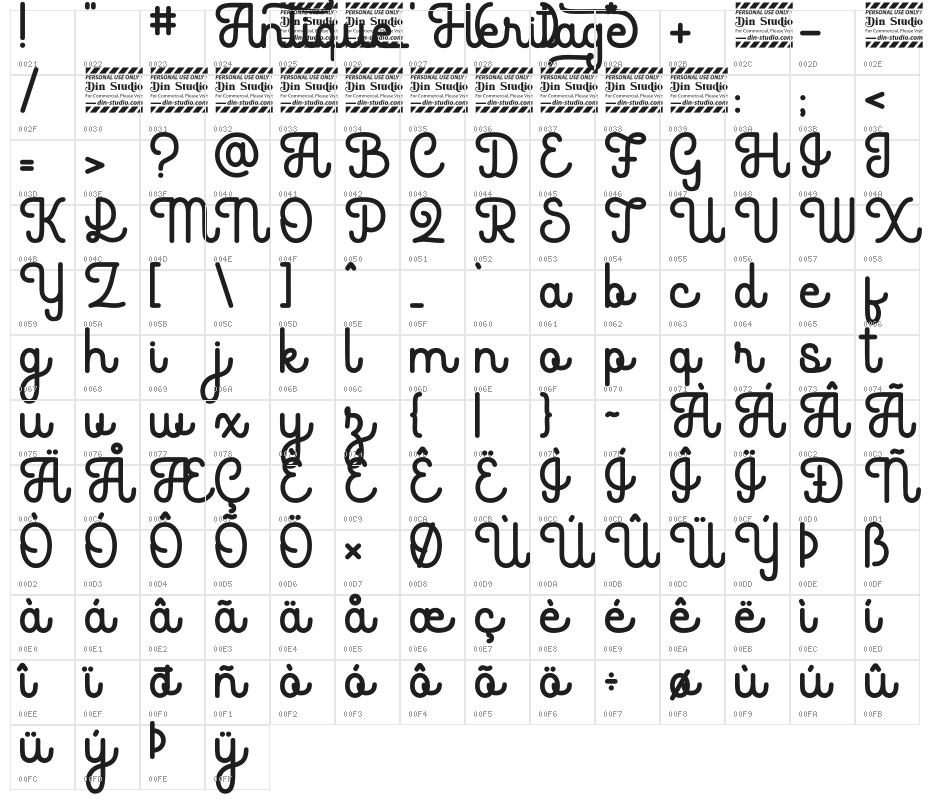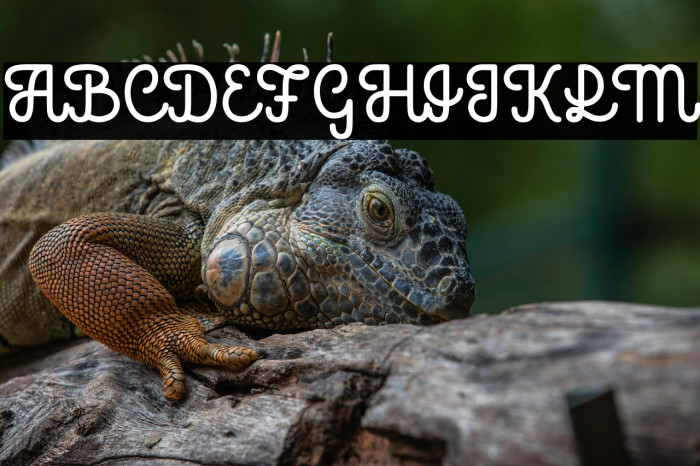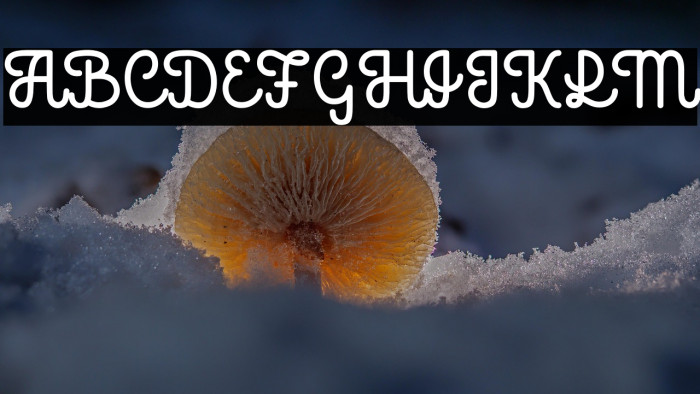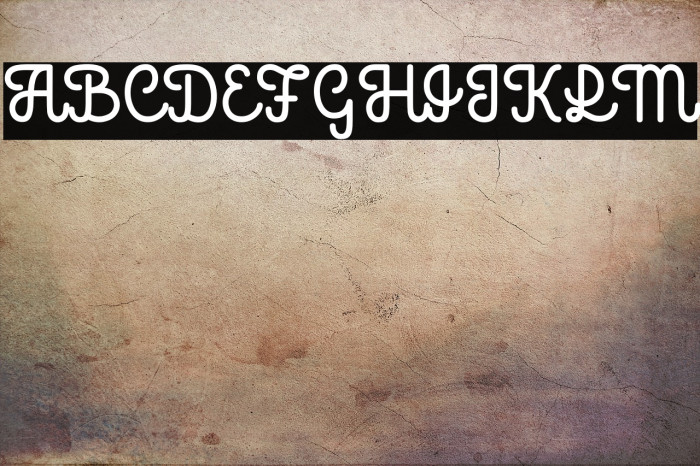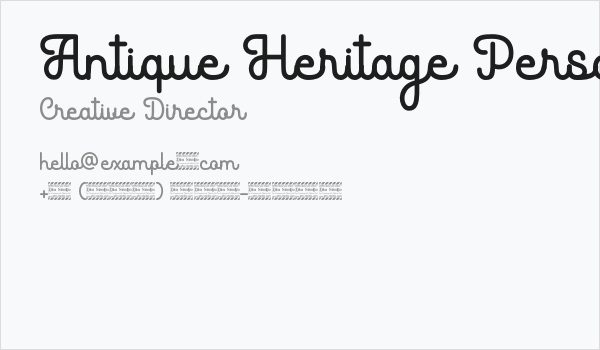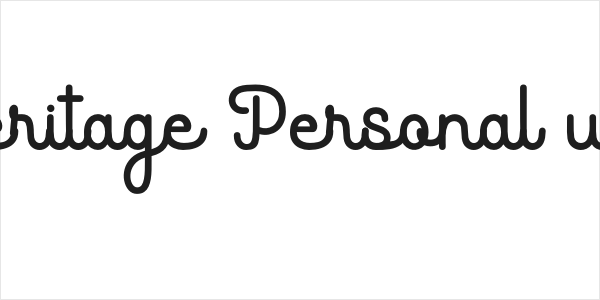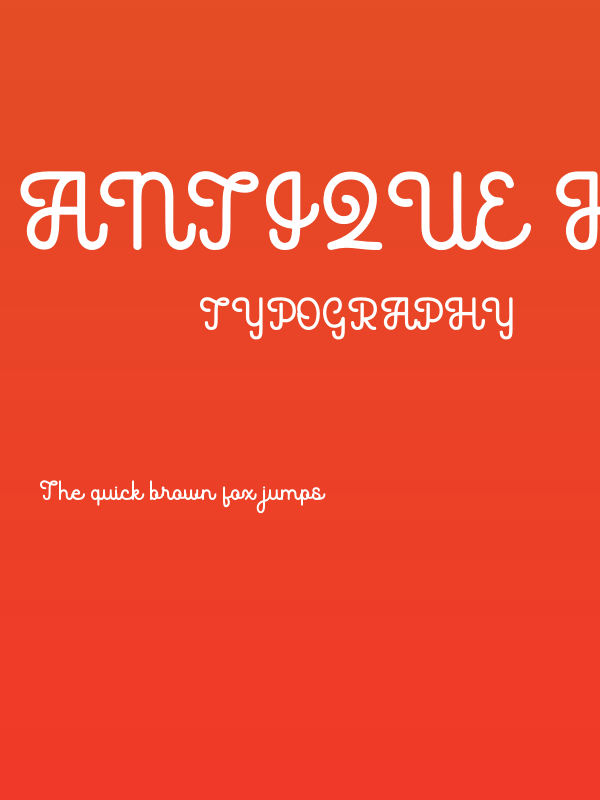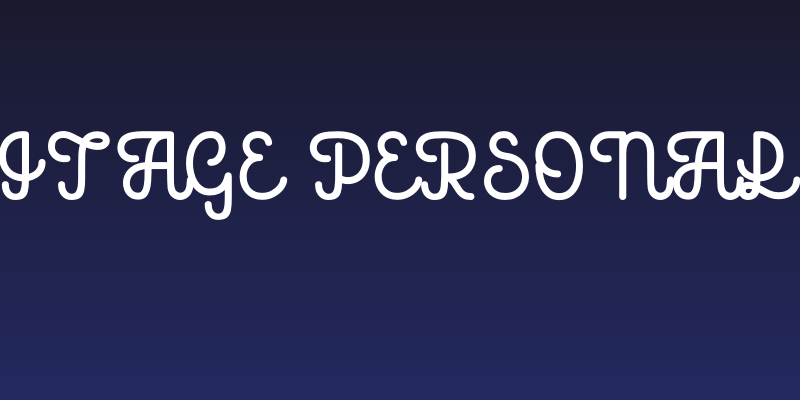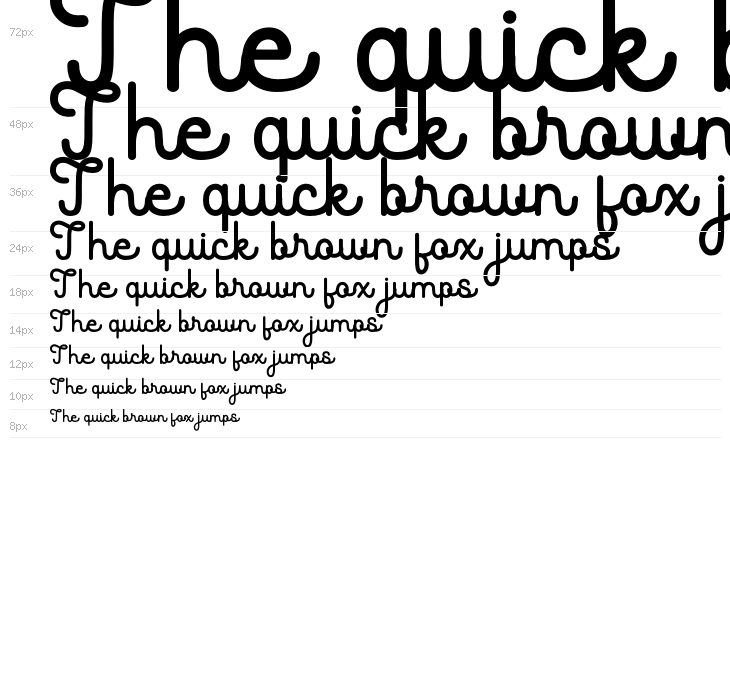
Antique Heritage Personal use Regular Font
Antique Heritage Personal use Regular Description
This font features a decorative and vintage style with intricate loops and swirls, reminiscent of classic calligraphy. The uppercase letters are bold and ornate, while the lowercase letters maintain a consistent flow with elegant curves. The numbers and special characters are designed to match the overall aesthetic, adding a touch of sophistication. The font's unique style makes it suitable for projects that require a historical or artistic flair, such as invitations, branding, or signage.
| Proposed Projects | Ideal for wedding invitations, vintage-themed branding, artistic signage, and decorative print materials. |